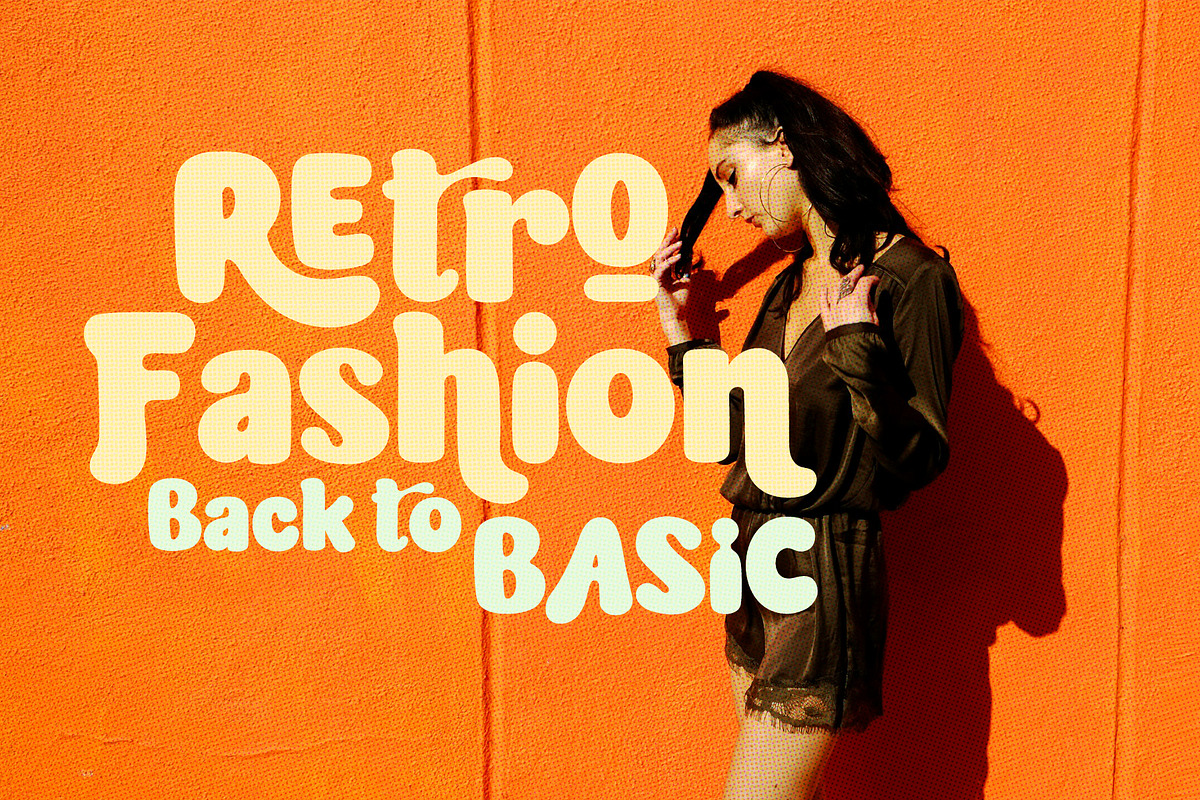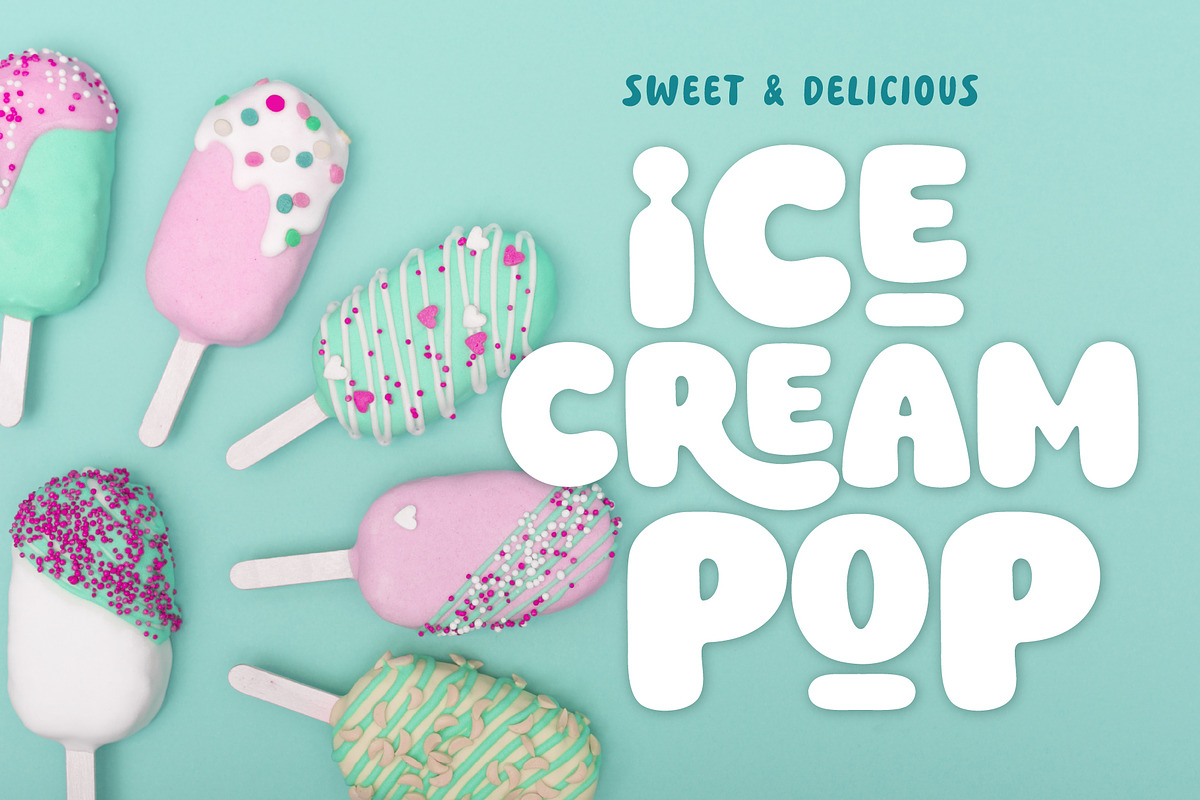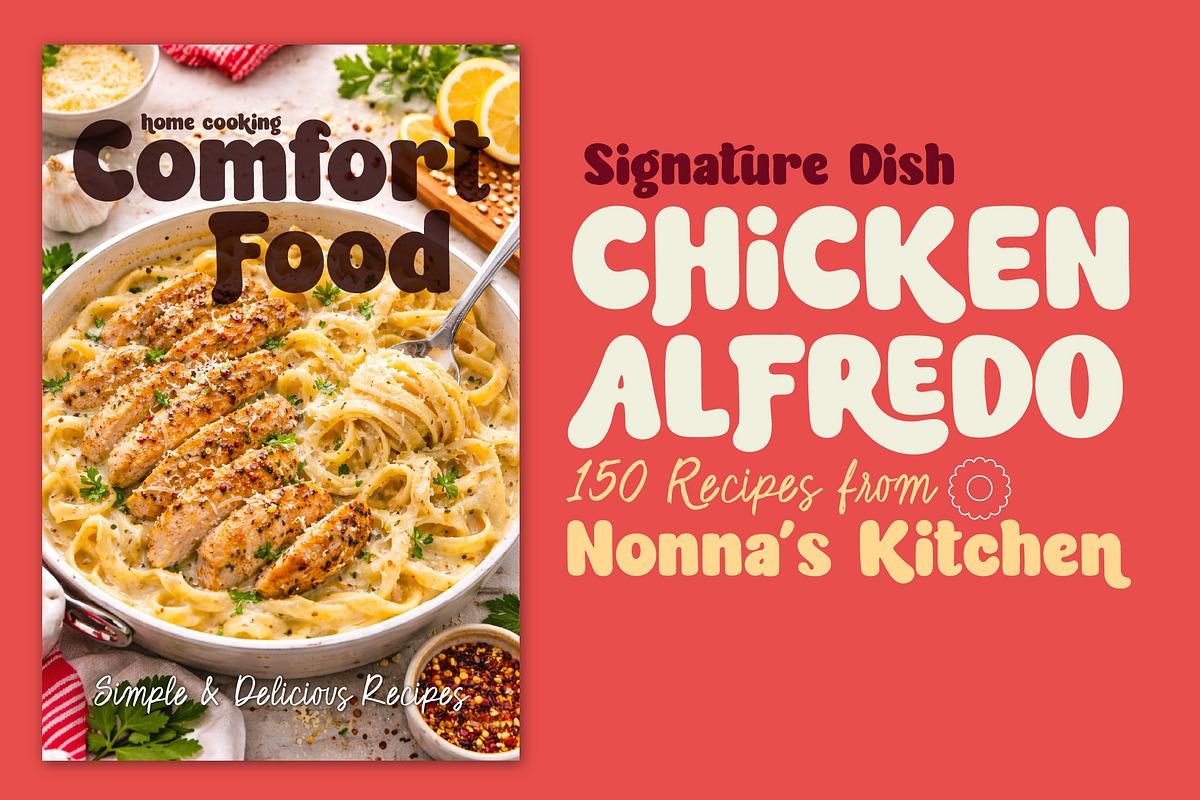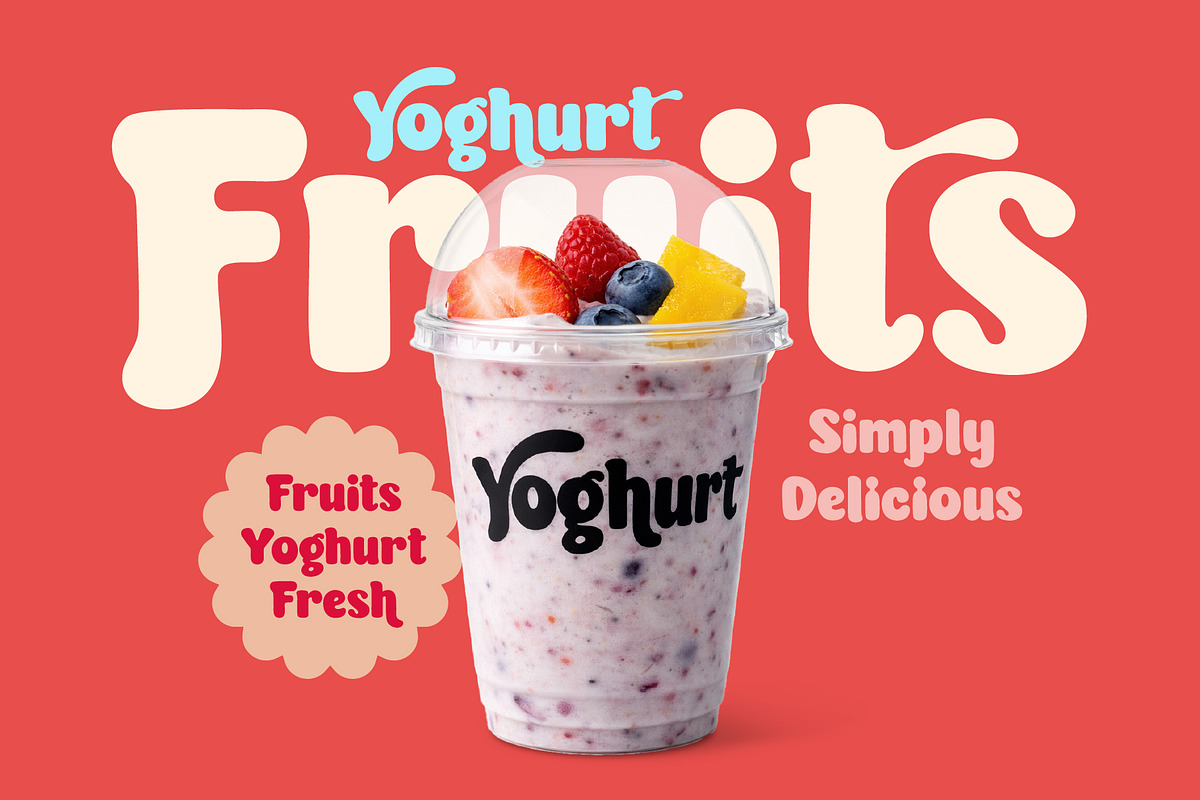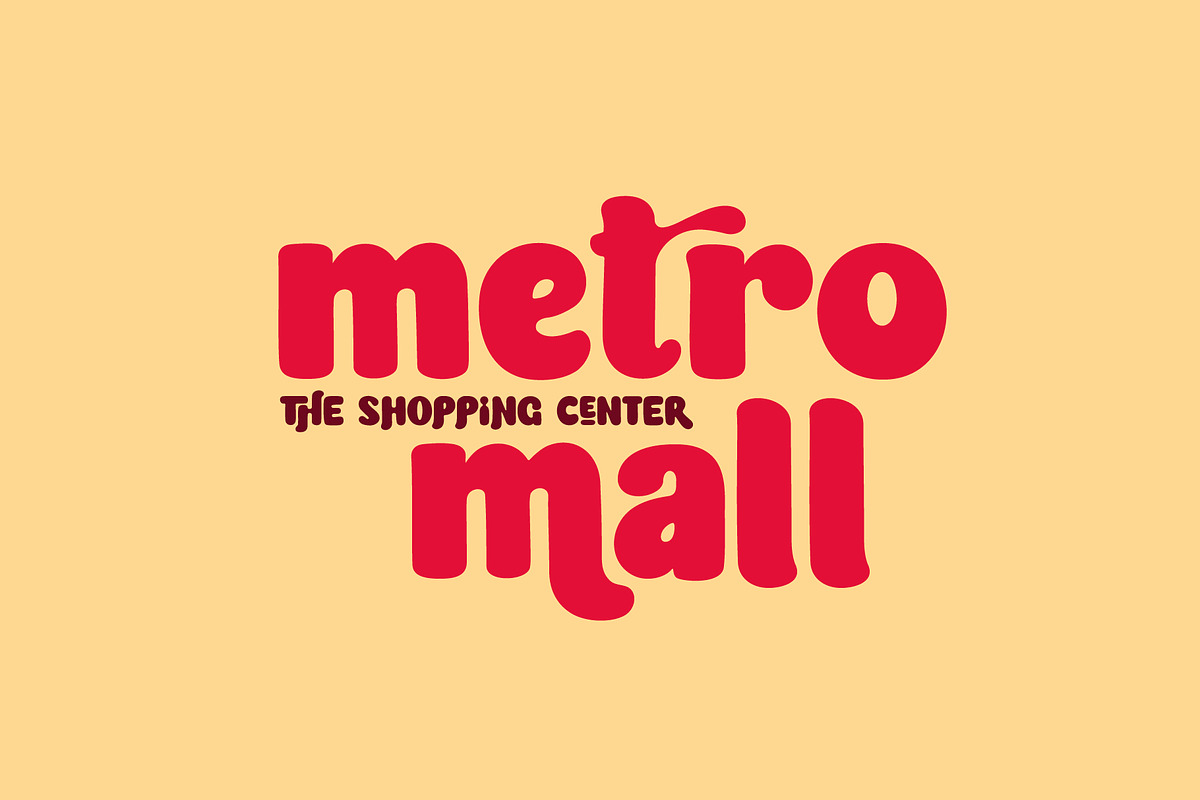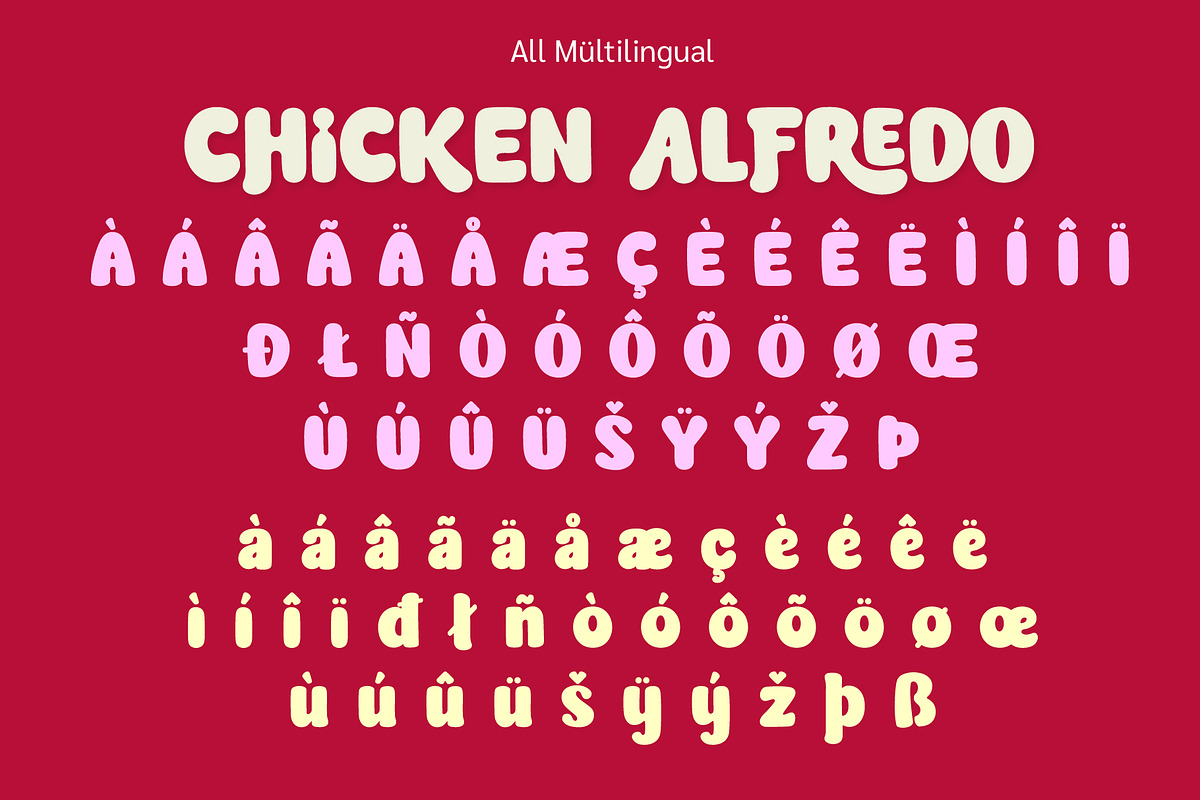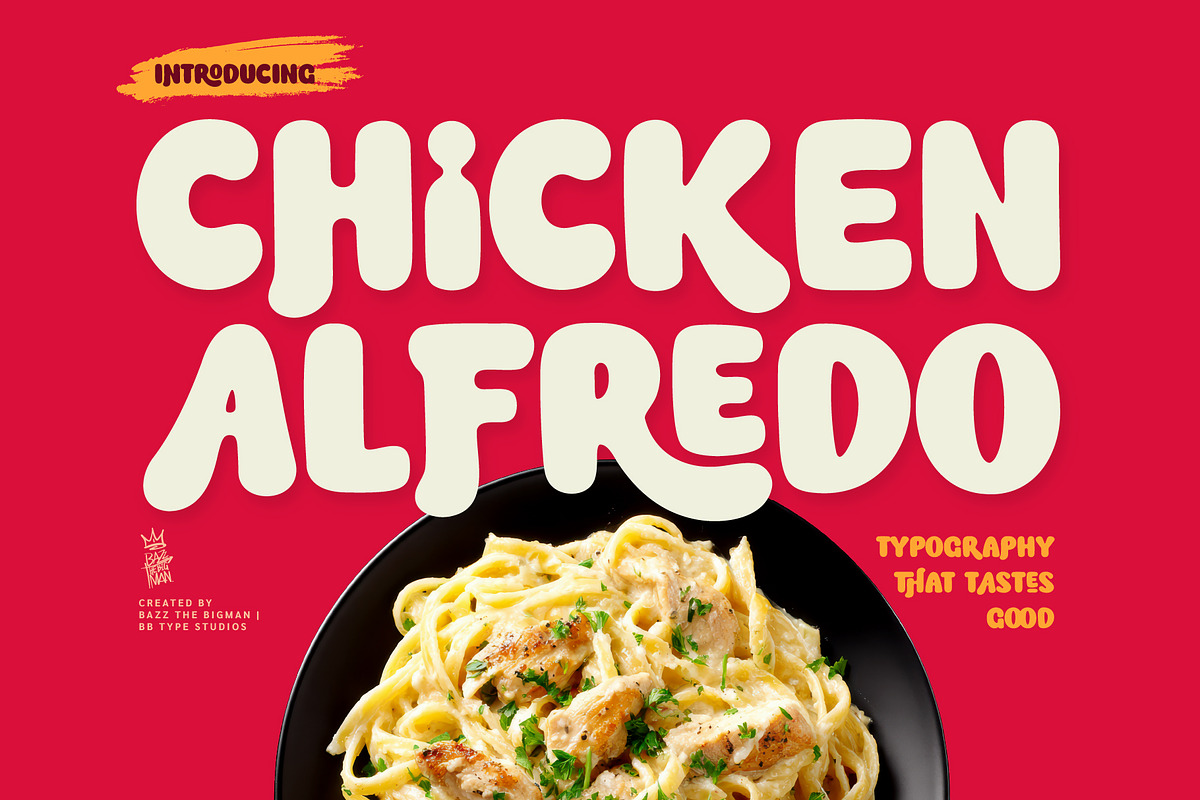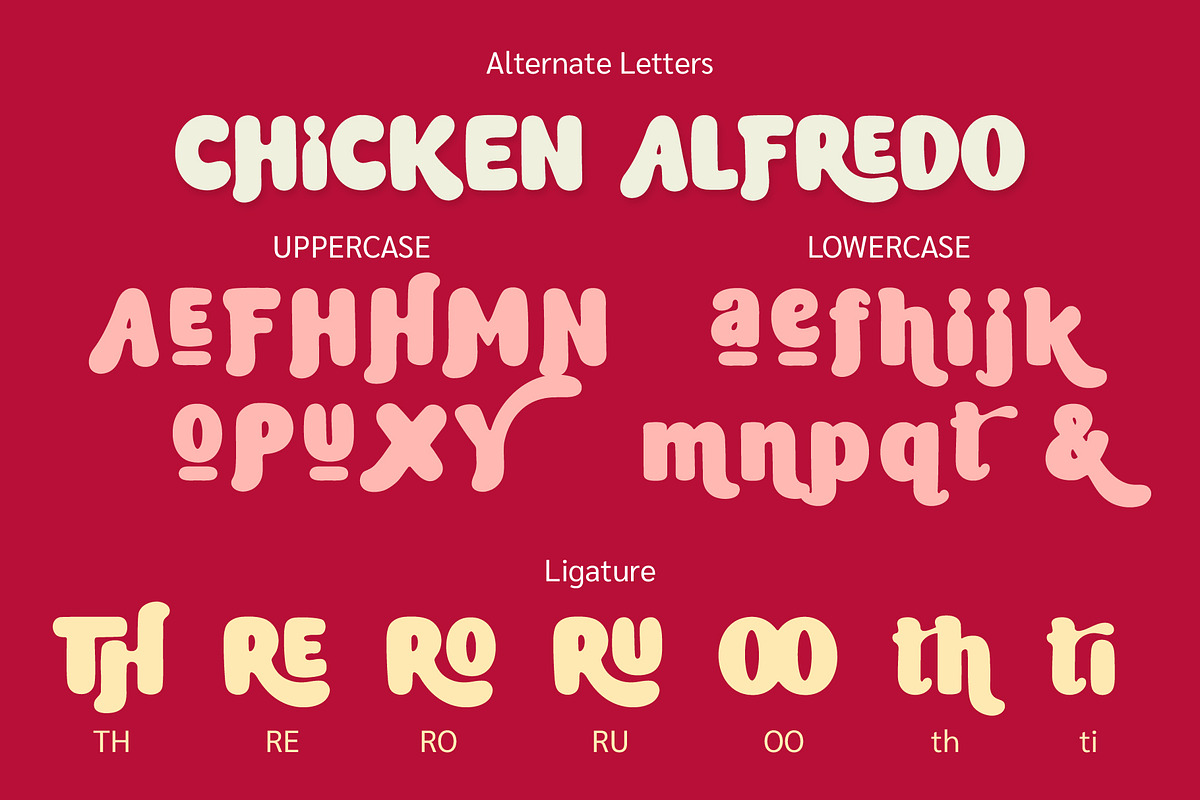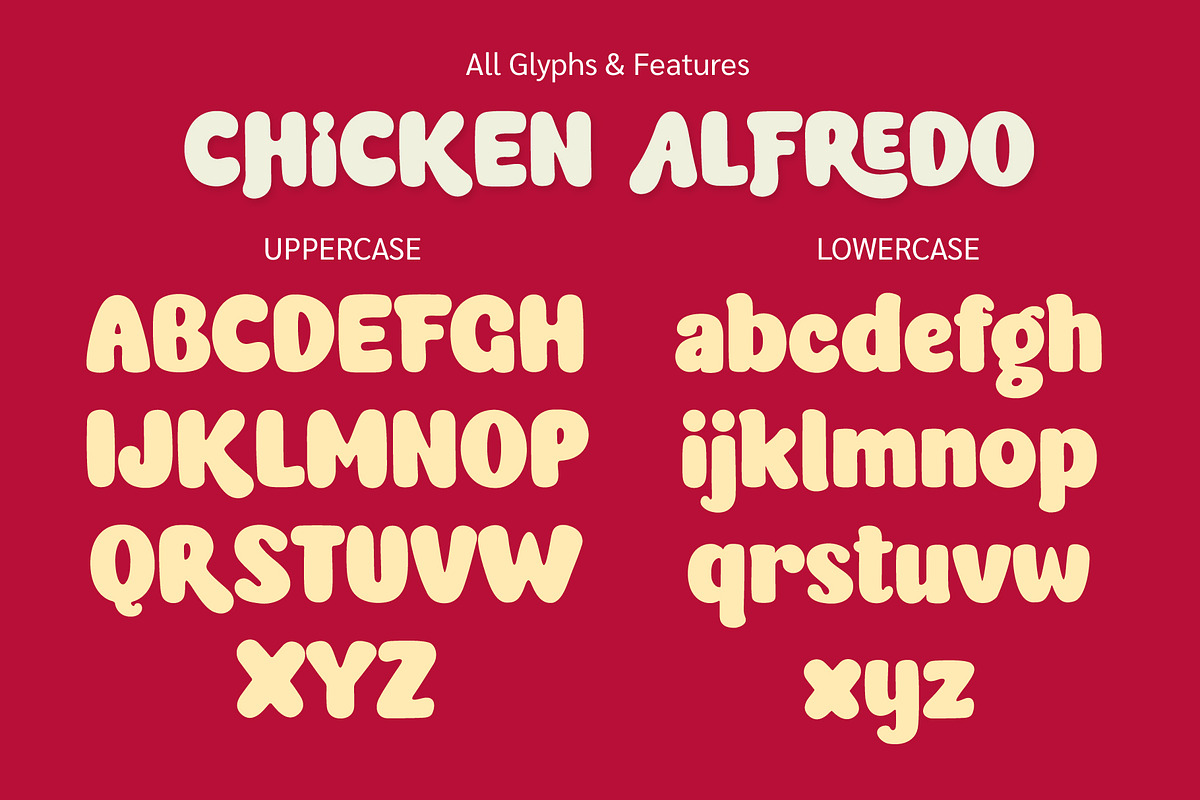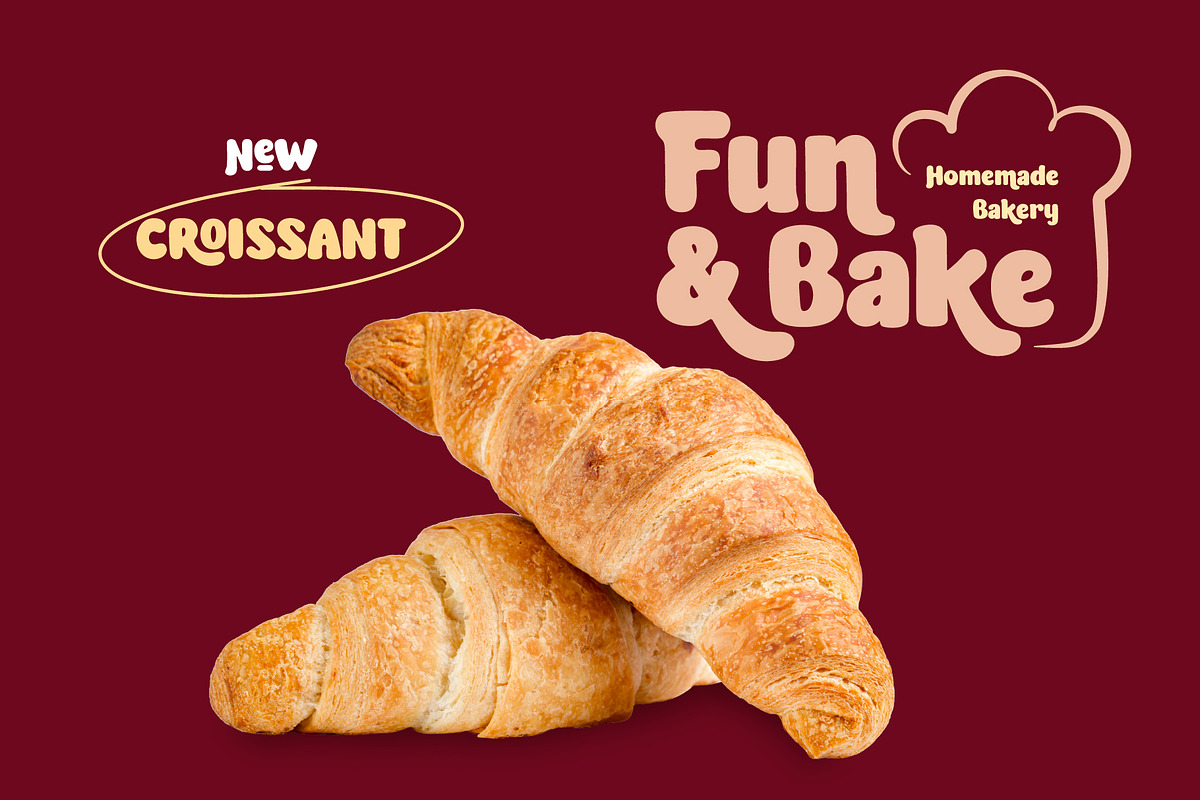
Chicken Alfredo
Chicken Alfredo is a bold, chunky and playful display font designed to make your typography stand out. With its soft rounded shapes and friendly personality, this typeface brings a strong visual impact while staying fun and approachable. Perfect for branding, packaging, posters, headlines, logos, social media, and any design that needs a bold and eye-catching look. This font blends retro charm with modern playfulness, making it highly versatile for both commercial and creative projects.
What’s Included Uppercase & Lowercase Letters Numbers & Punctuation Ligatures Alternate Characters Multilingual Support
Perfect For Branding & Logo Design Packaging Design Posters & Headlines Social Media Graphics Children & Fun Projects Retro & Modern Designs